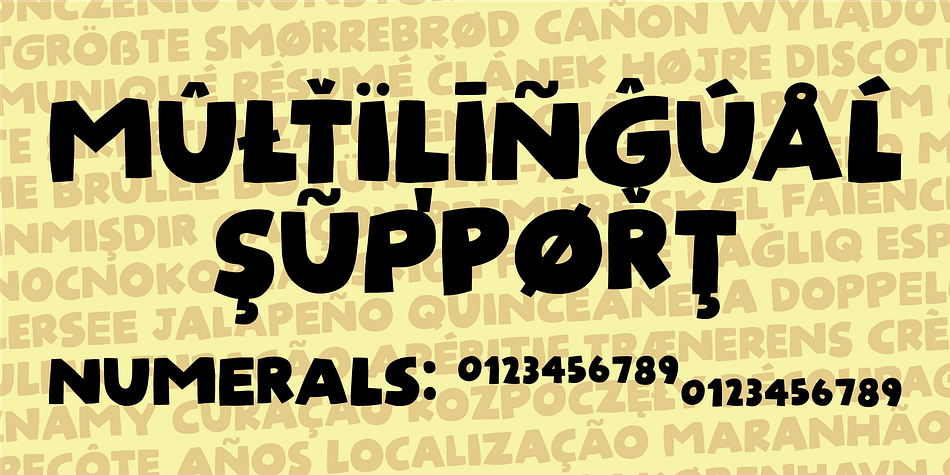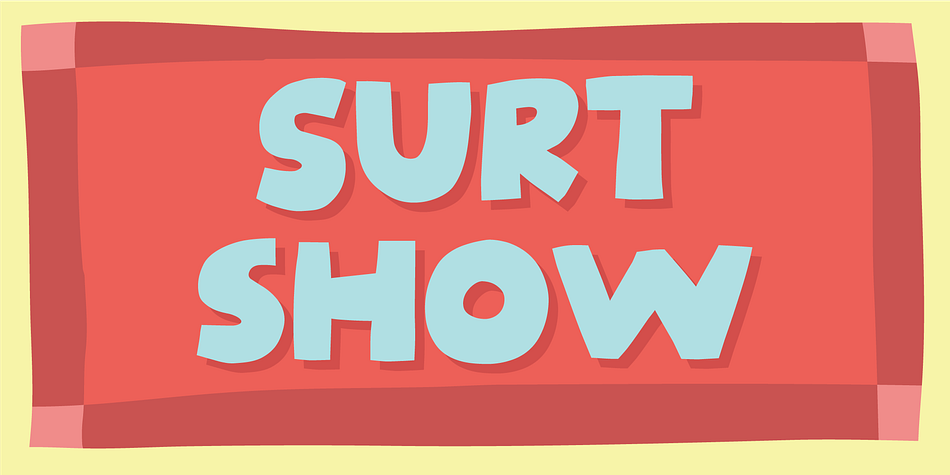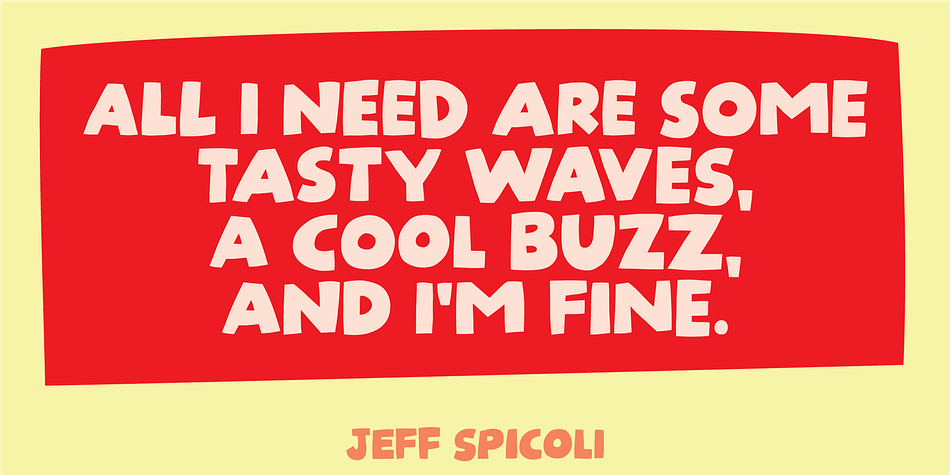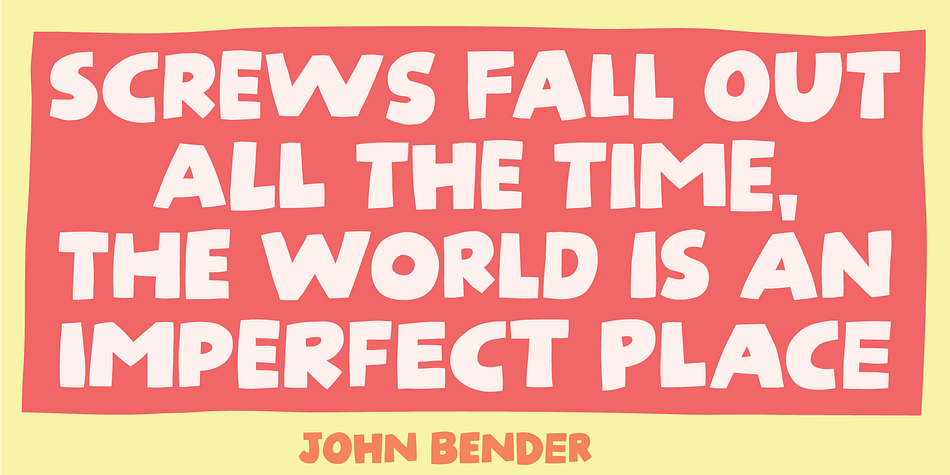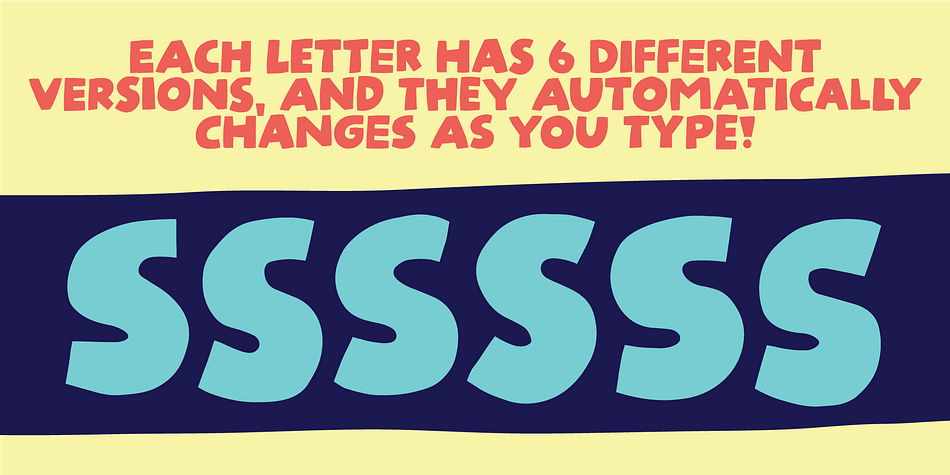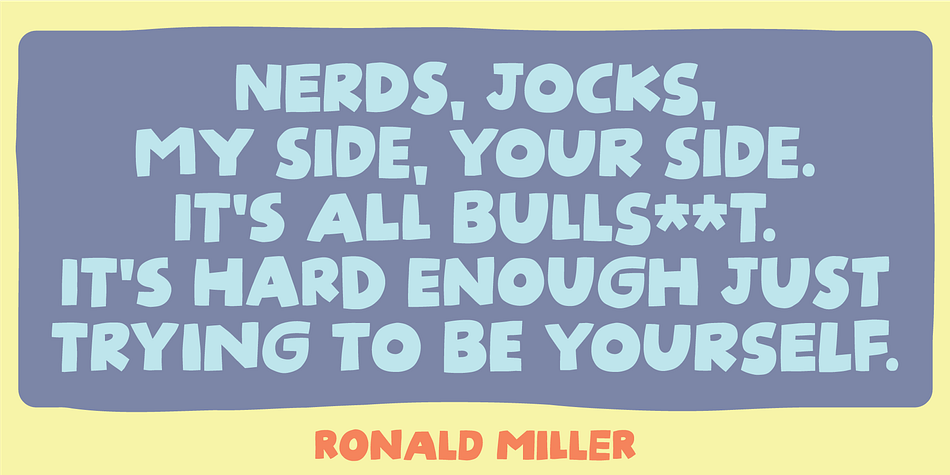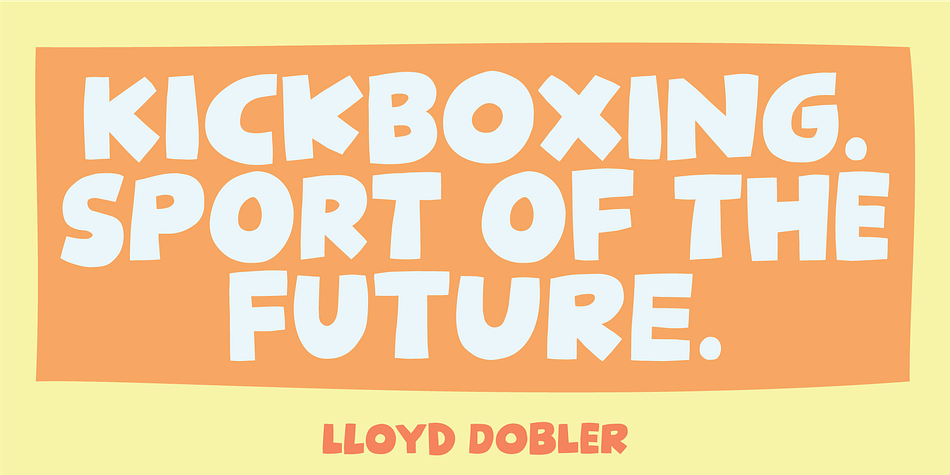
Surt Show
Designed by Jakob Fischer, Surt Show is a hand display font family. This typeface has two styles and was published by Pizzadude.dk.
Surt Show is my take on a lively ALL CAPS fresh comic font, inspired the loose style of grafitti I had back in the 1980ies :)
I have added 6 different version of each letter, and they automatically changes as you type - leaving your text even more lively and organic!